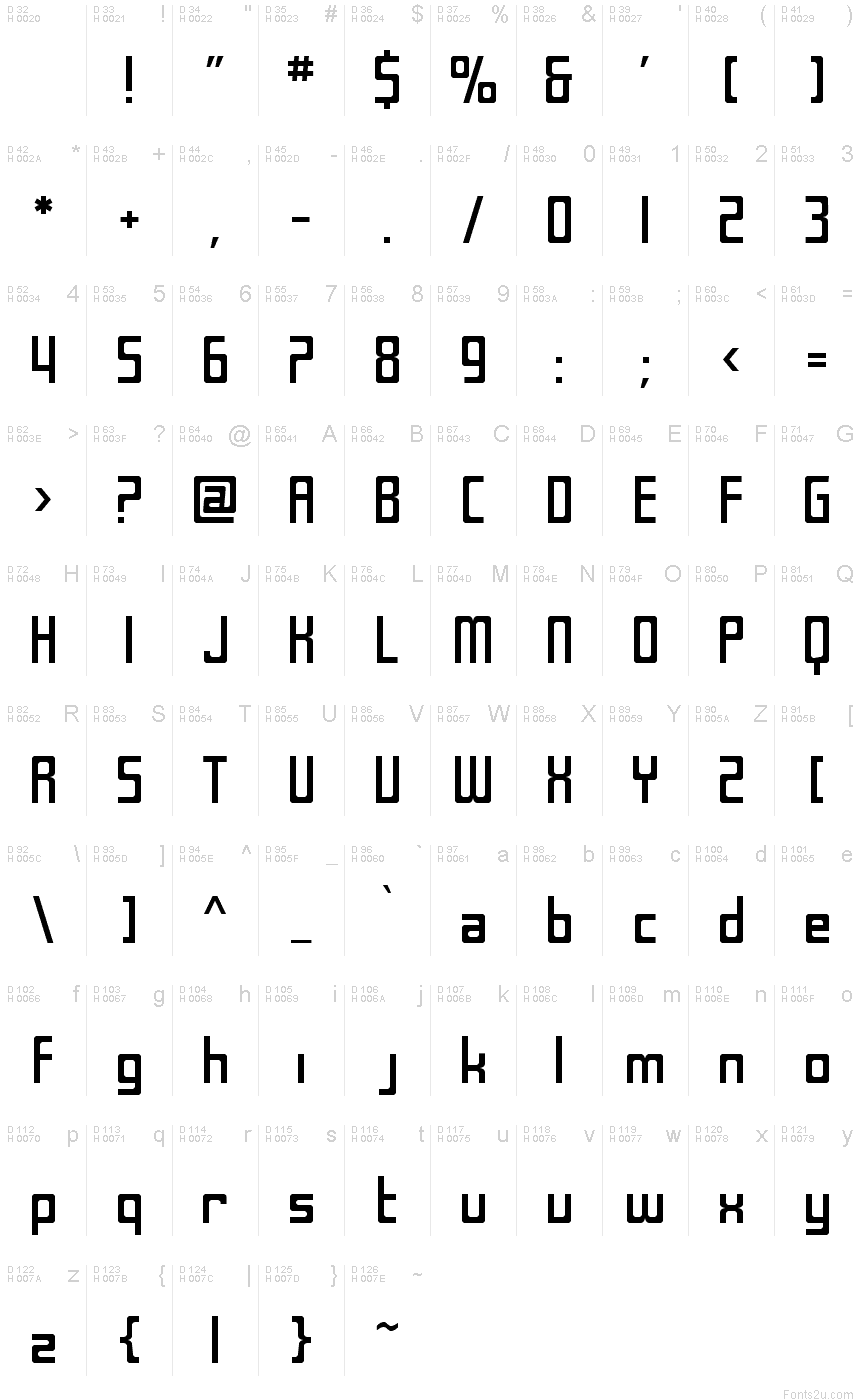
SF Laundromatic
SF Laundromatic font by Derek Vogelpohl of ShyFoundry is a free techno display typeface with a clean, retro-futuristic pulse. Tall, squared forms flow into tight curves, giving every word a streamlined, appliance-like sheen—as if it belongs on the front of a vintage washing machine or a control panel in a ‘70s sci‑fi film. The monoline strokes and snug spacing create a steady rhythm that feels mechanical yet approachable, sharp enough for tech but soft enough to stay readable at medium sizes.
Using SF Laundromatic, you can give sci‑fi posters, arcade logos, synthwave album covers, gadget packaging, esports branding, and tech YouTube thumbnails a distinct, unified voice. This free font shines when set in bold, all-caps headlines, then paired with a simple geometric sans for body copy to keep layouts grounded. Scale it large to let those continuous strokes lock up into chunky, futuristic wordmarks that are instantly recognizable.